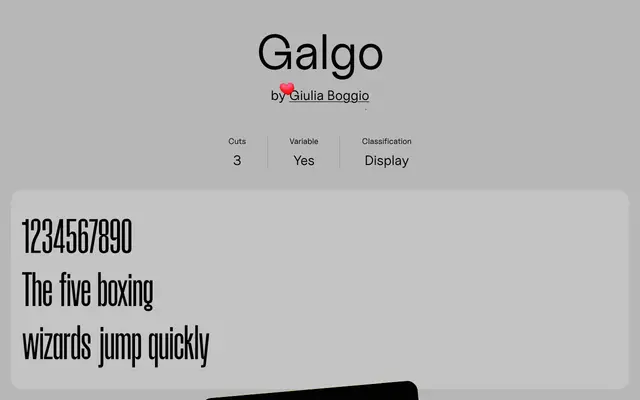
Galgo
A display typeface by Giulia Boggio, available in three cuts including a variable font, free for commercial and personal use under the SIL Open Font License.
Galgo comes in three cuts, one of which is a variable font, making it flexible for display applications without a licensing cost. Released under the SIL Open Font License 1.1, it permits commercial use, modification and redistribution with some additional conditions. The page offers little detail on its formal characteristics, but its classification as a display face suggests it is intended for headlines and large-scale use rather than body text.
Classified as Display by the foundry. Insufficient detail on the page to determine a more specific subcategory.